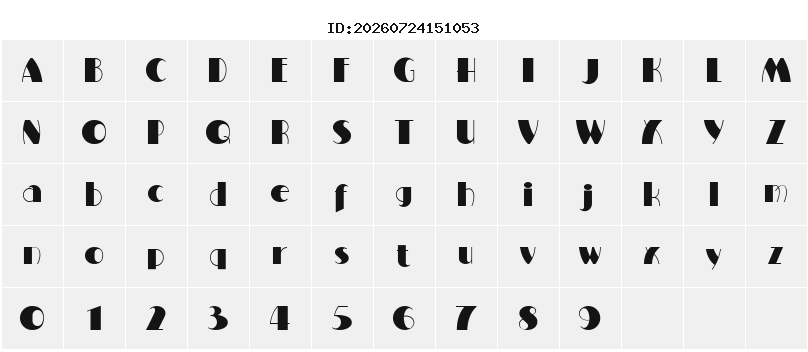
• Font Name: Milton Burlesque NF
• Designer: Nick Curtis
• Manufacturer: Nick's Fonts
About Milton Burlesque NF.ttf
Milton Burlesque NF.ttf is a modern, elegant sans-serif font designed for ultimate readability and visual harmony. Perfect for branding, headlines, web design, and print materials.